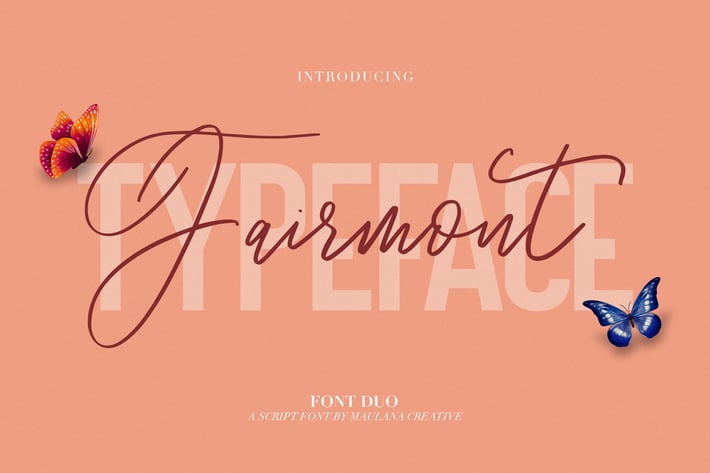
Fairmont - Script Sans Font
Give your designs an authentic handcrafted feel. "Fairmont" is perfectly suited to signature, stationery, logo, typography quotes, magazine or book cover, website header, clothing, branding, packaging design and more. Included Ligatures.